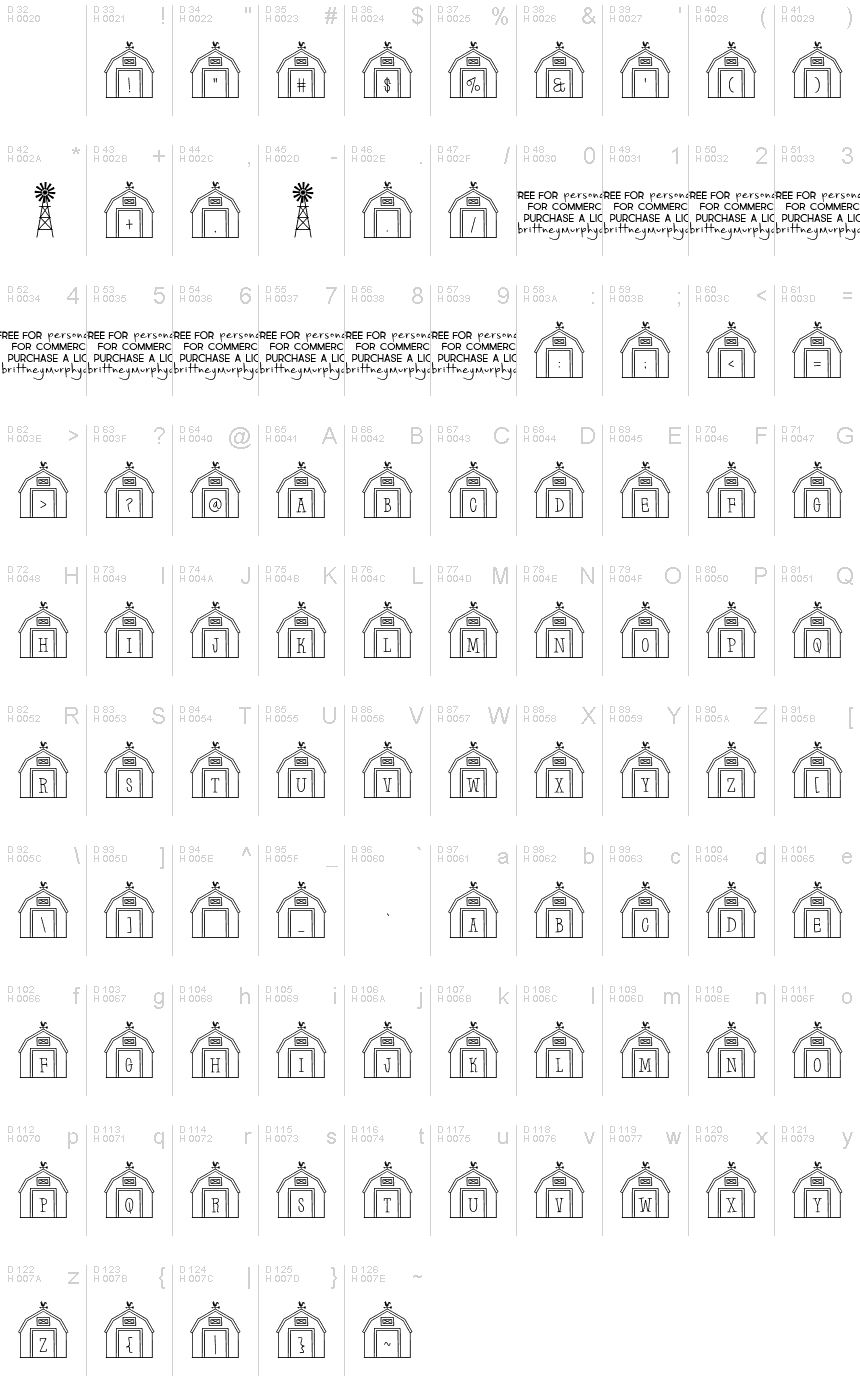
Barn-Letters Regular
Barn-Letters is a unique display font created by Brittney Murphy Design. Its semi-light weight and decorative style make it perfect for projects that require a touch of whimsy and charm. With its rustic look and feel, Barn-Letters is ideal for designs that have a country or farm theme, such as invitations to rustic weddings, labels for homemade jams or honey, or signage for local farmers markets. The font's design, featuring barns with a letter inside, adds an extra layer of creativity to any project. Let Barn-Letters bring your designs to life with its playful yet sophisticated style!
Barn Letters is a fun barn font! There are two versions: one regular and one with the barn color filled in.
Use the circumflex ^ symbol for an empty barn and the asterisk * or dash for a windmill!